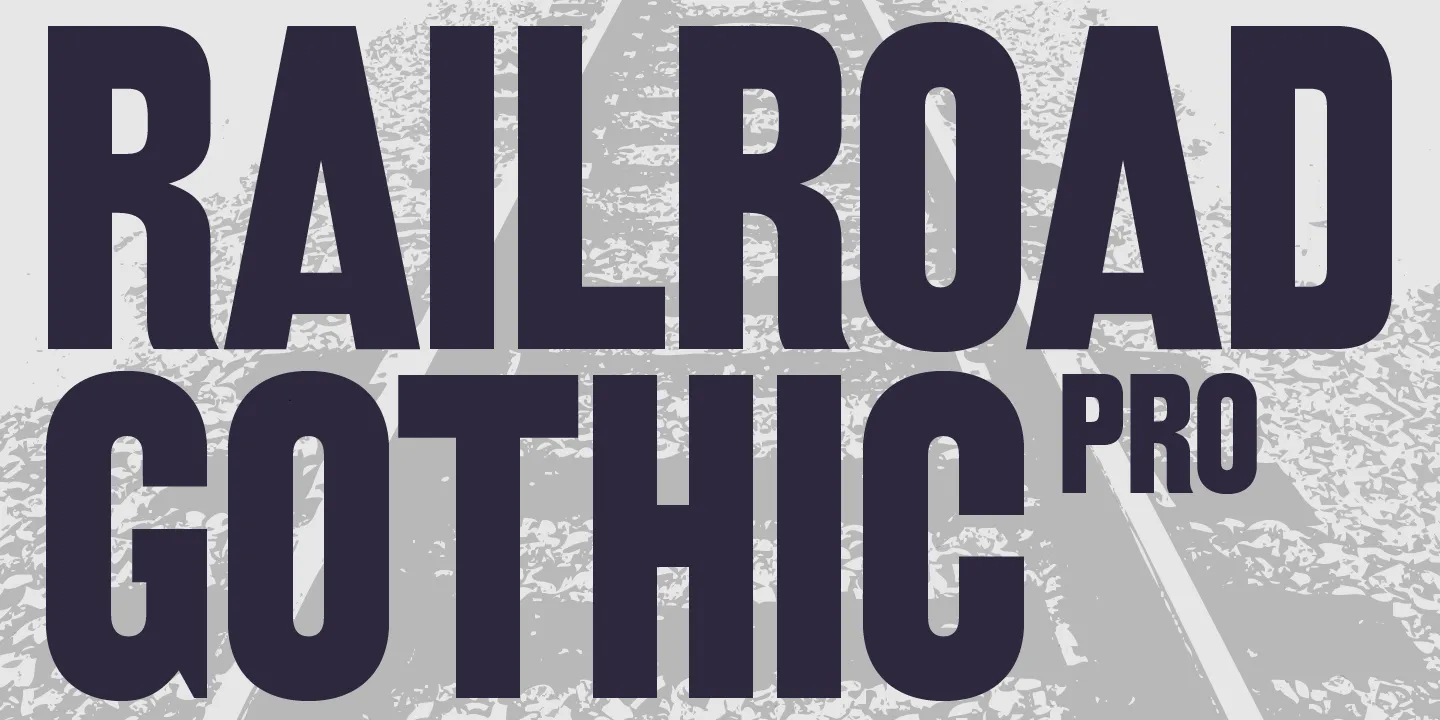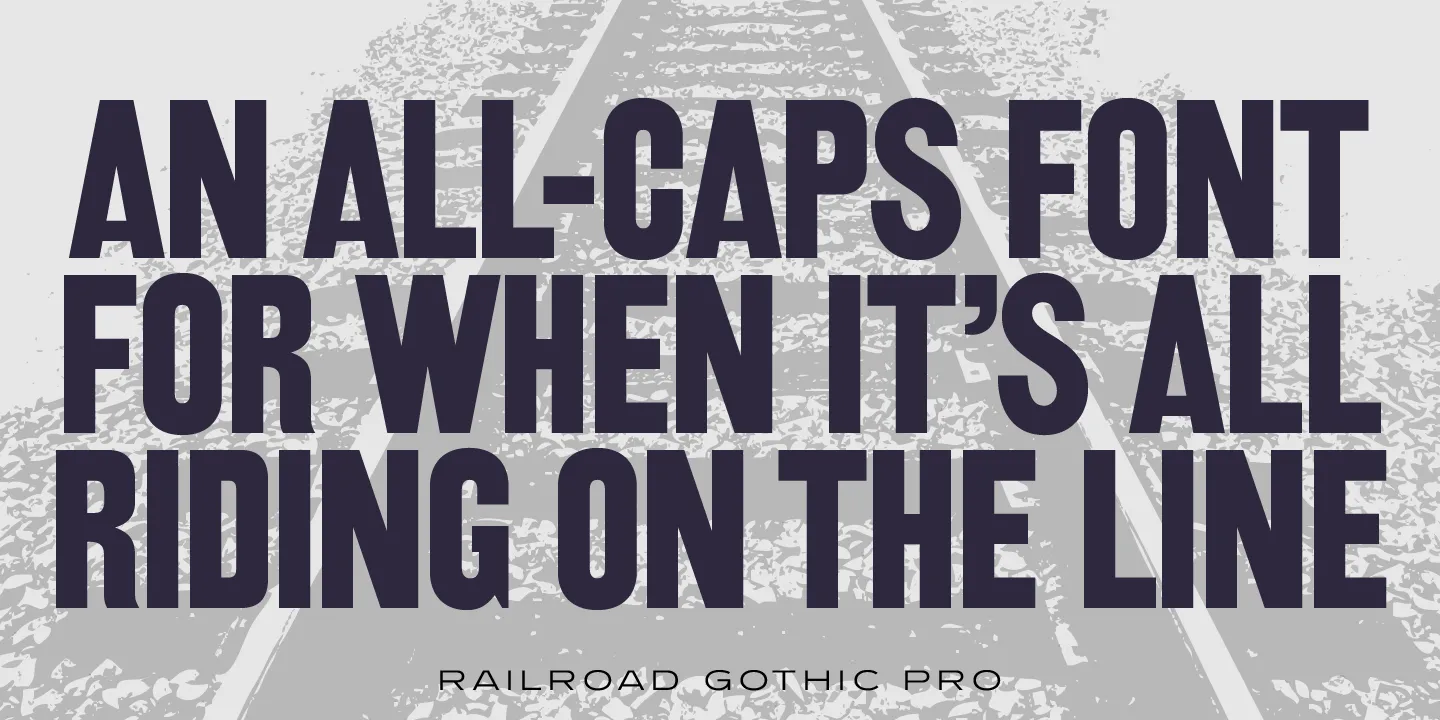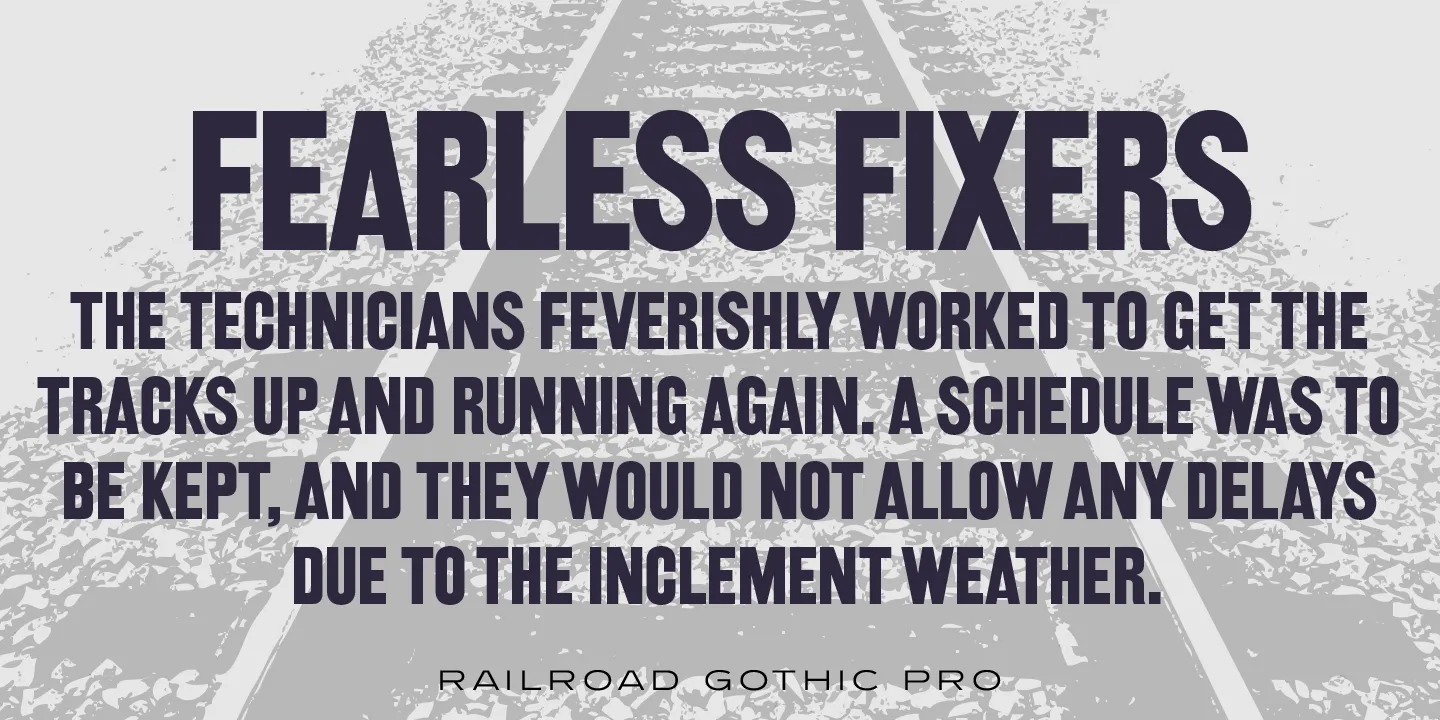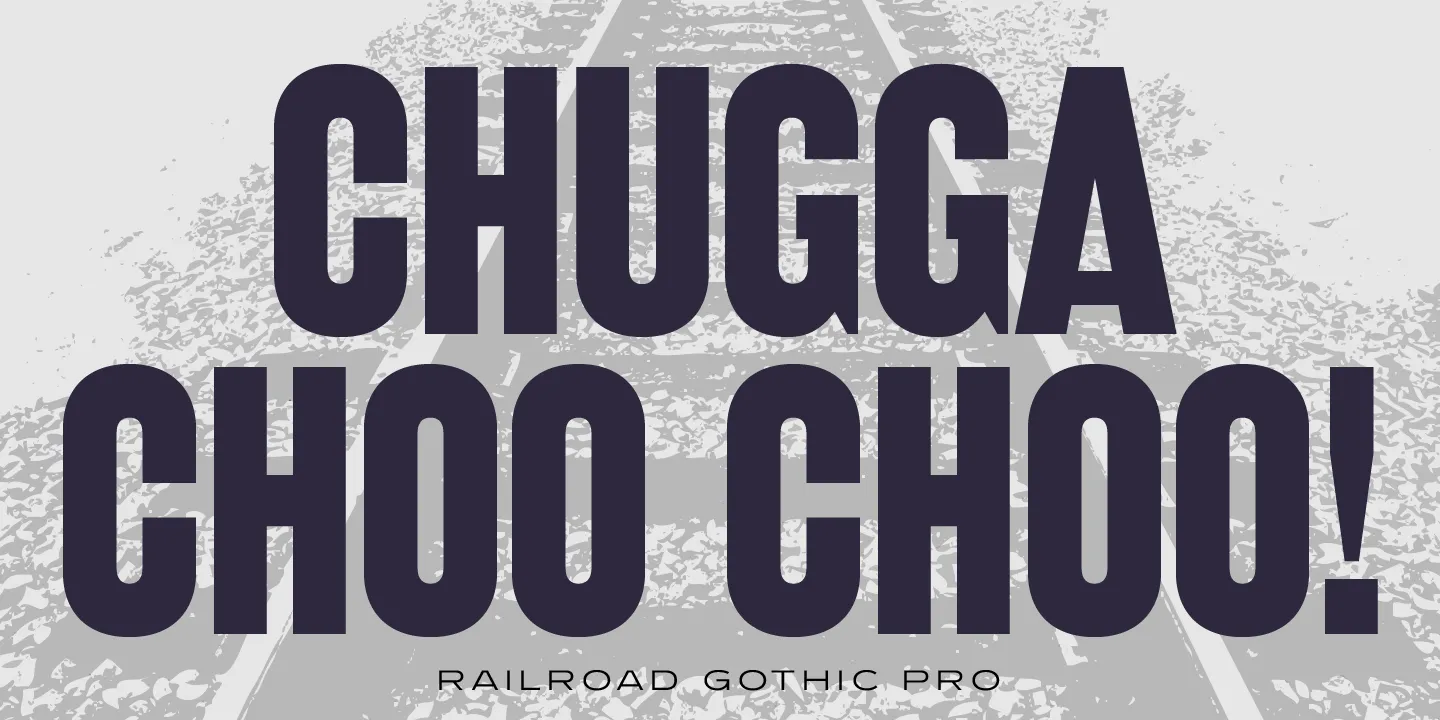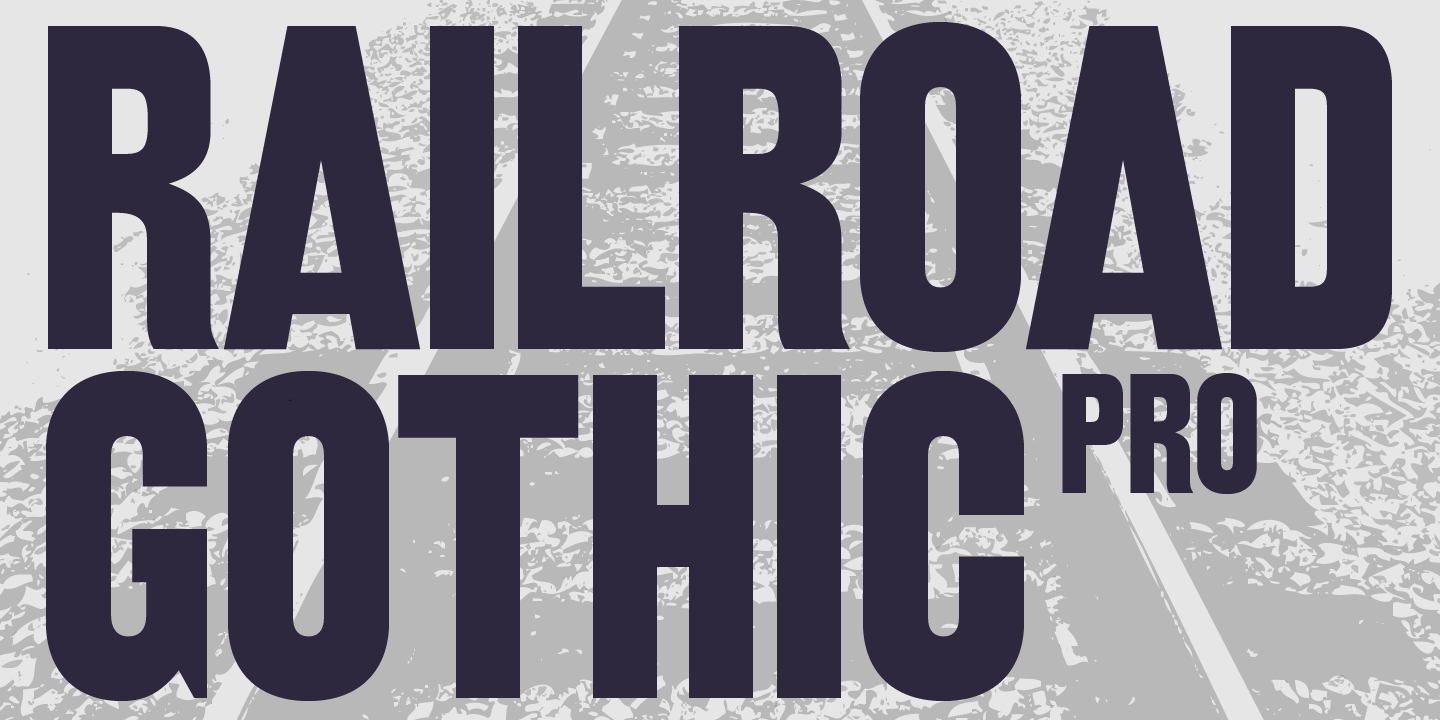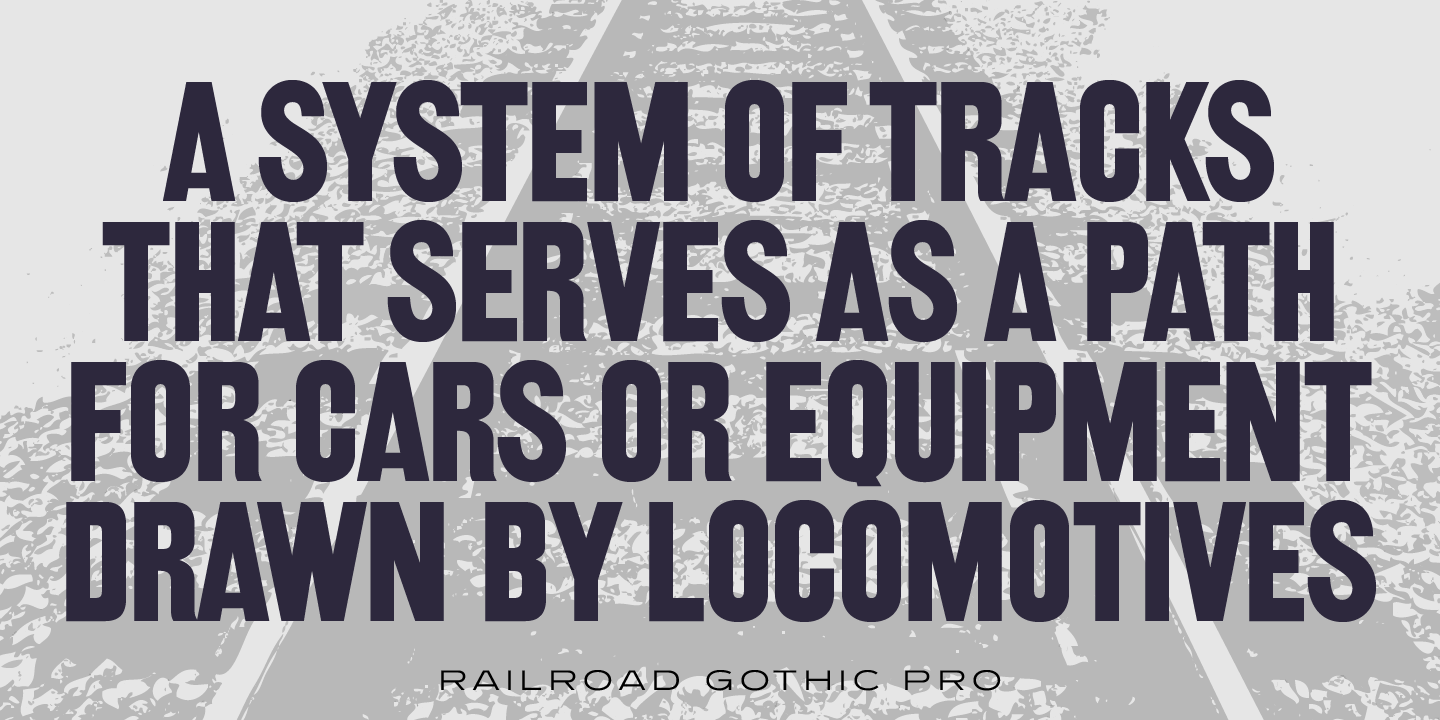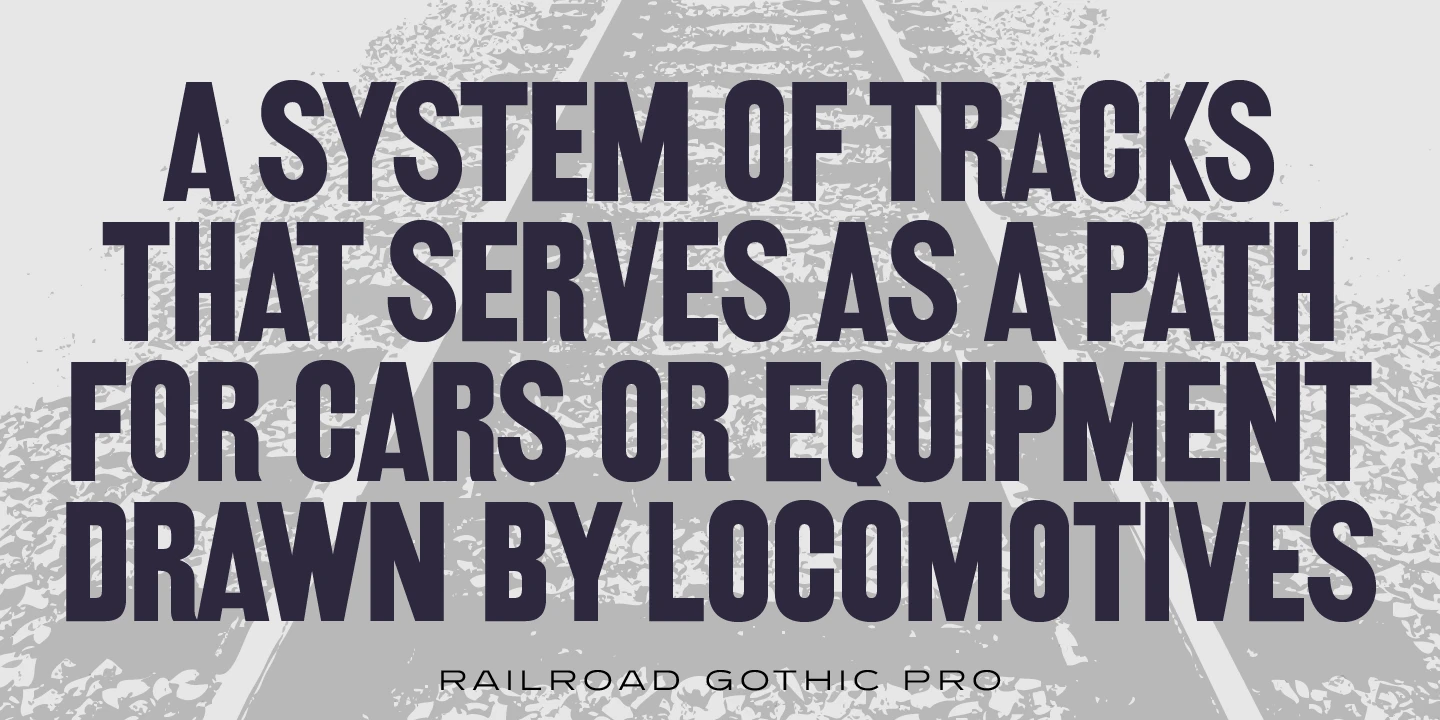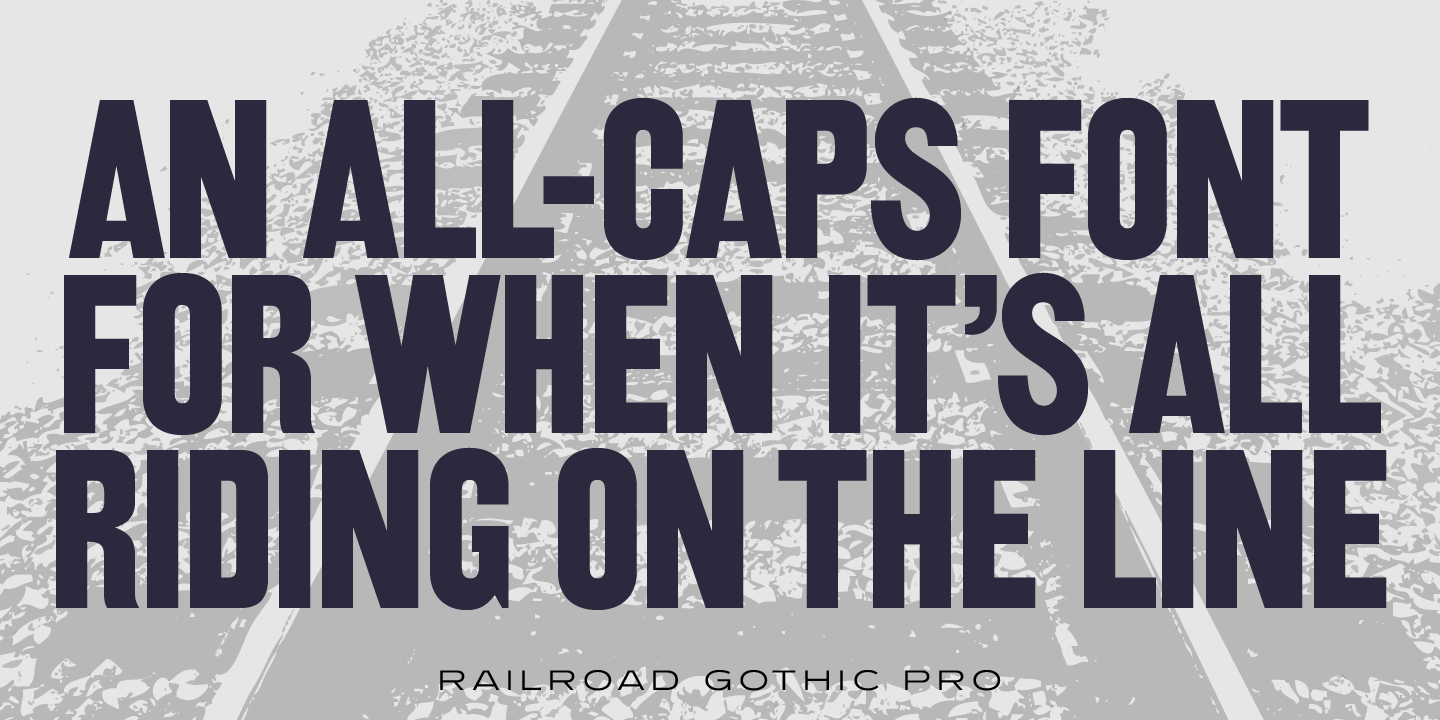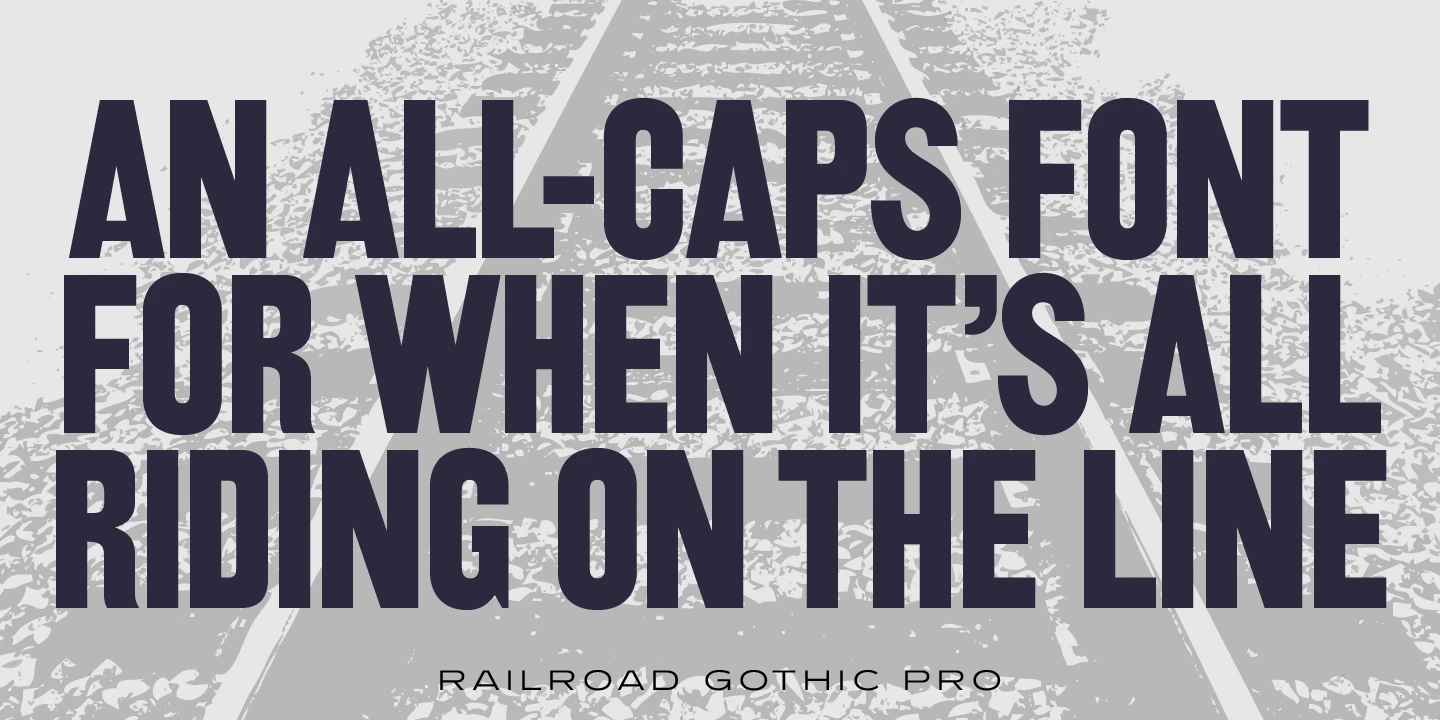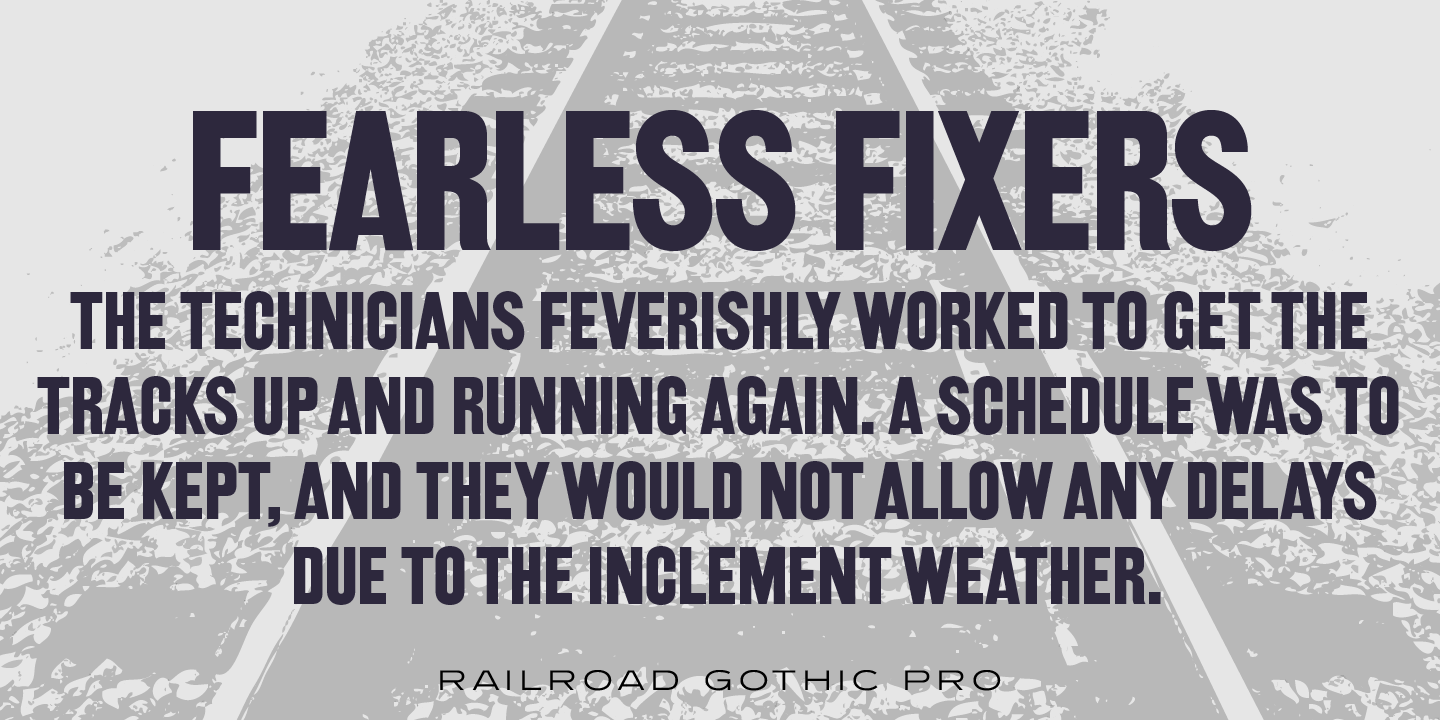
Railroad Gothic Font
Railroad Gothic is a condensed, sans serif typeface, exclusively licensed from the Ludlow Collection. The original Railroad Gothic was produced by Ludlow in the early 1900’s, and Steve Jackaman (ITF) produced the digital version in 2017. The font provides support for Latin 1, Central, and Eastern European languages, and Cyrillic. Railroad Gothic is reminiscent of typefaces used in 1900’s railyards, hence the name.
Part of the Ludlow Collection